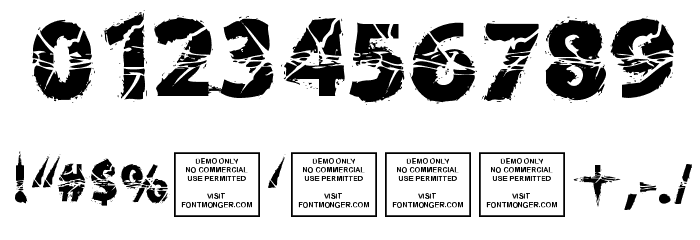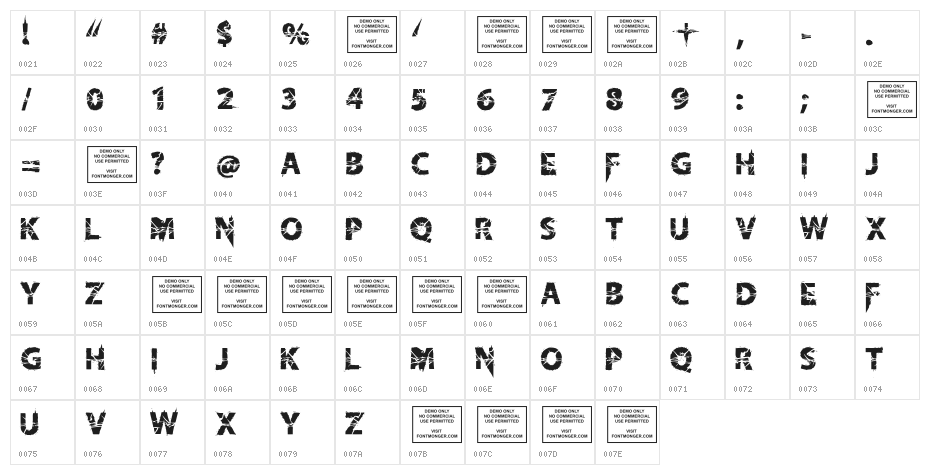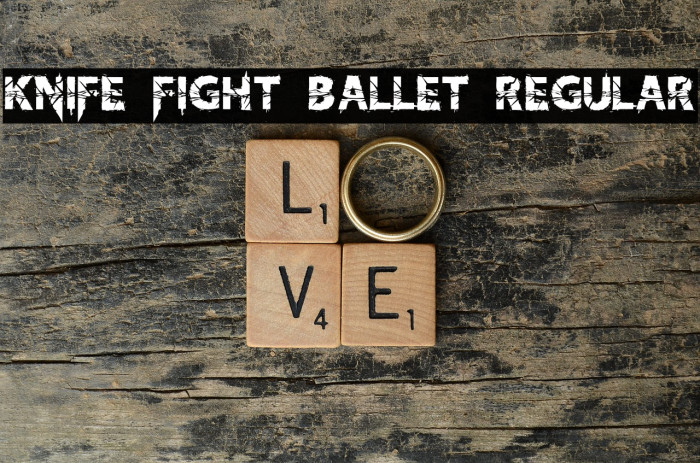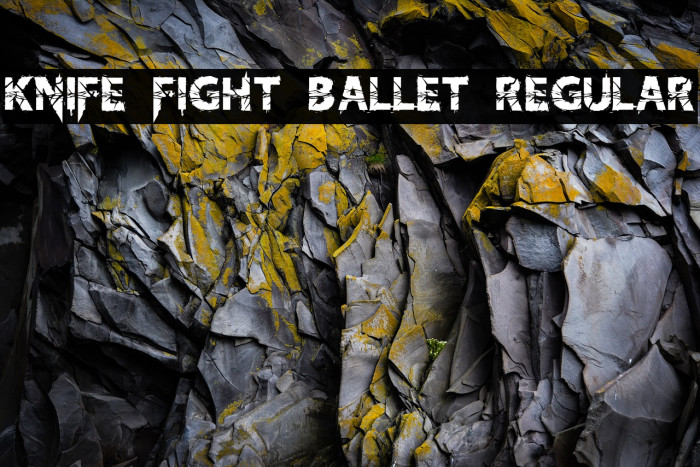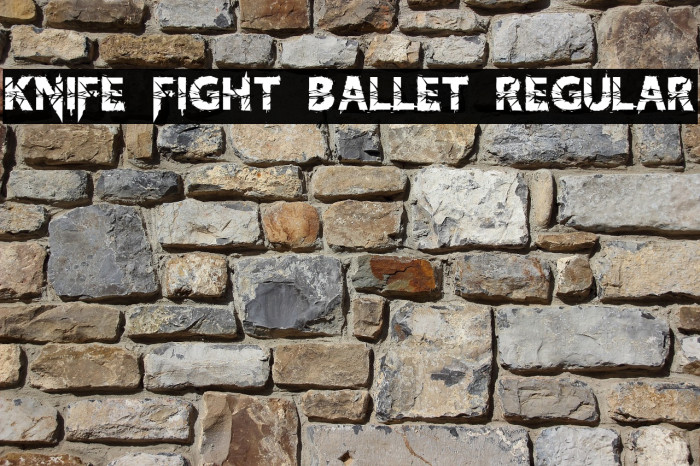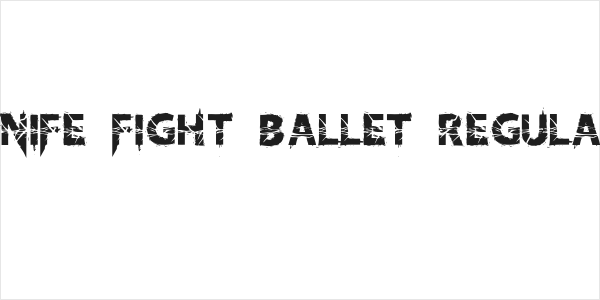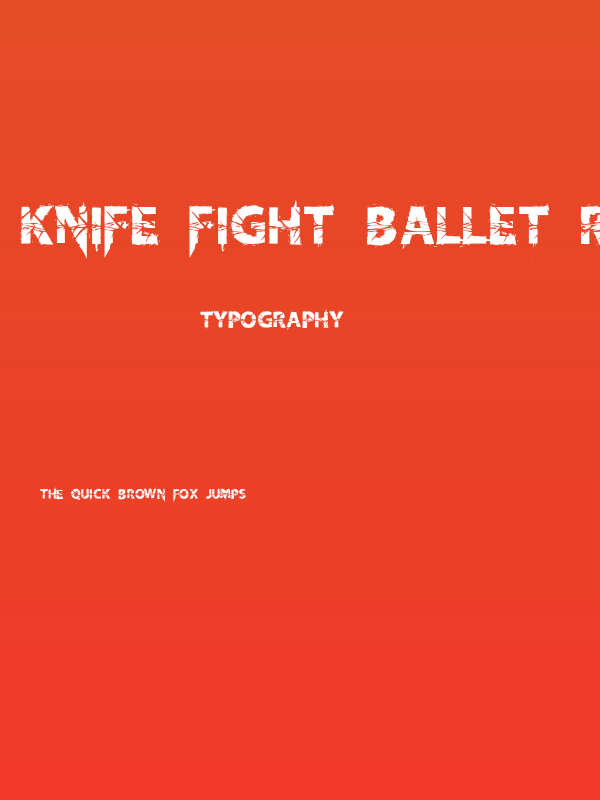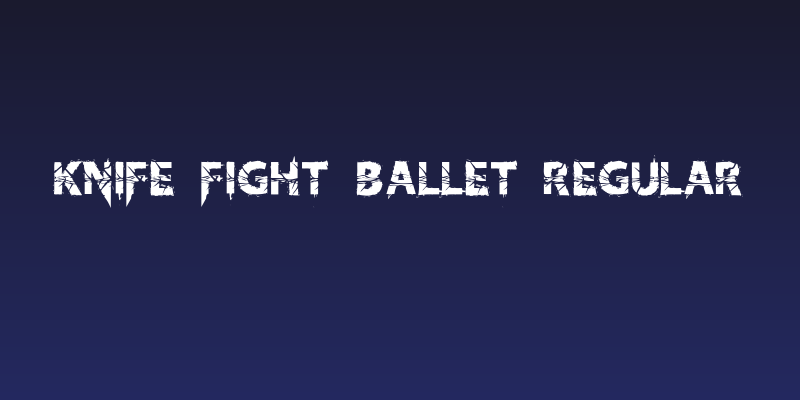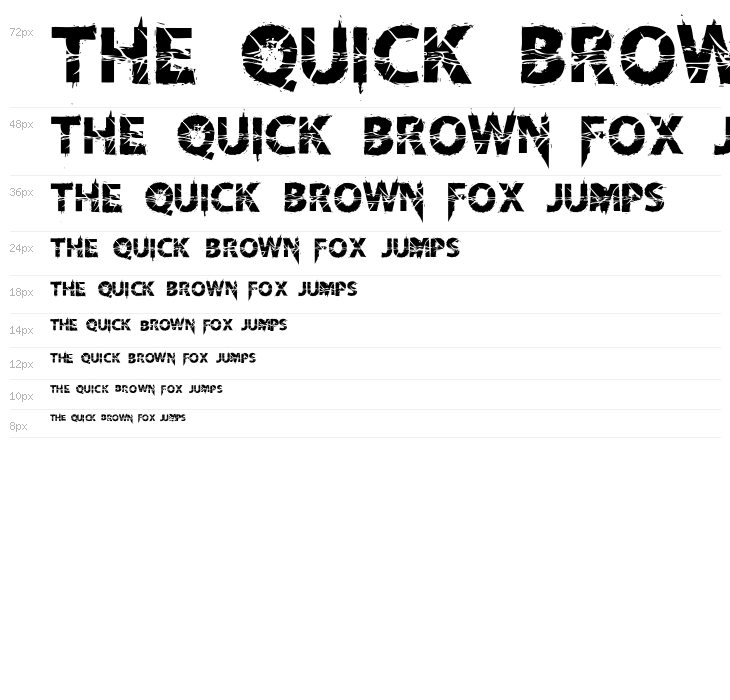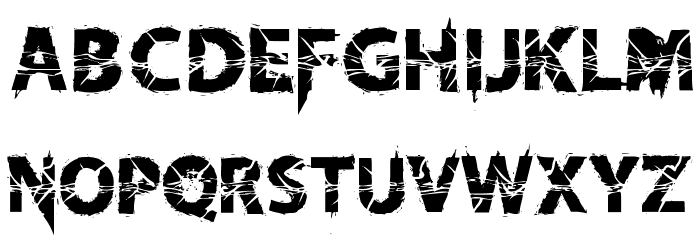
Knife Fight Ballet Regular Font
Knife Fight Ballet Regular Description
This font features a bold and aggressive design with a distressed, grunge-like appearance. The characters are heavily stylized with sharp, angular edges and a rough texture that gives the impression of being scratched or torn. This creates a dynamic and edgy look, making it ideal for projects that require a strong visual impact. The uppercase and lowercase letters maintain a consistent style, while the numbers and special characters complement the overall aesthetic. The font's unique design makes it suitable for use in creative and unconventional projects, where a bold statement is desired.
| Proposed Projects | Album covers, movie posters, video game titles, edgy branding, and streetwear designs. |